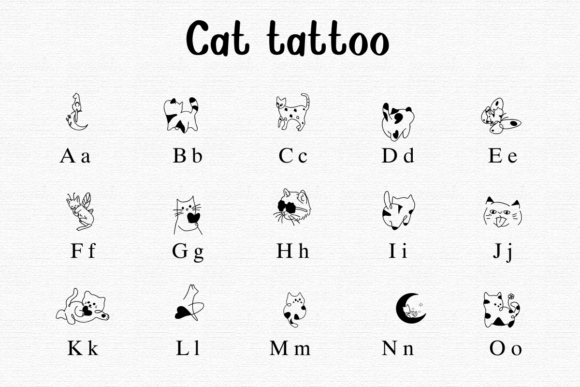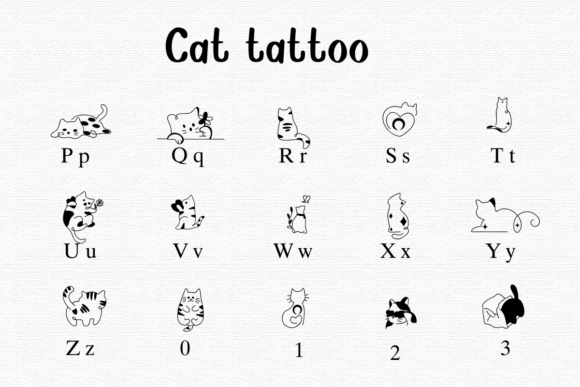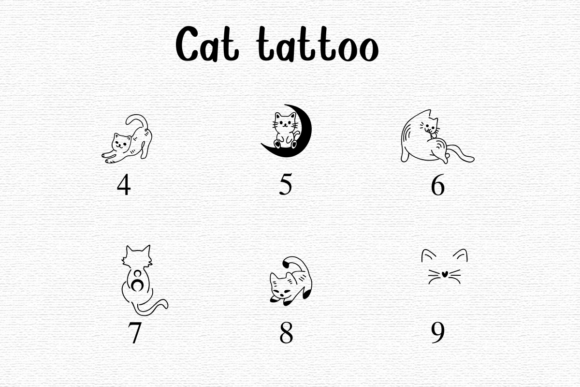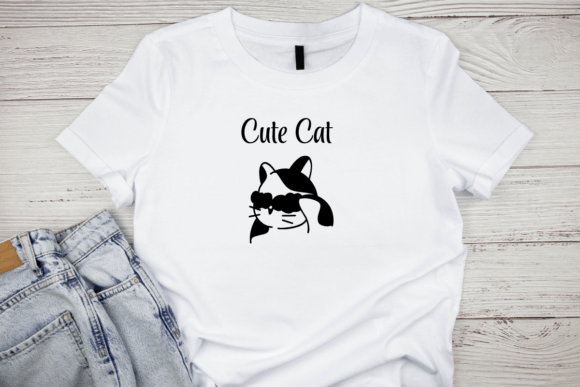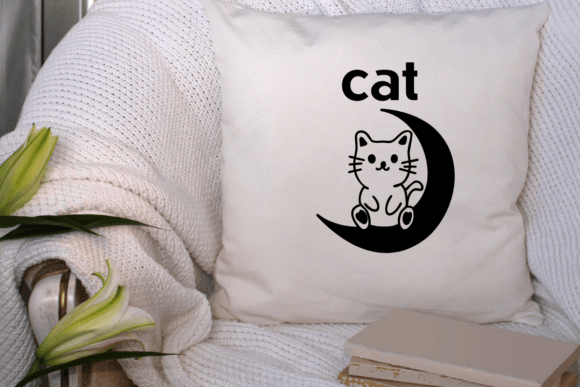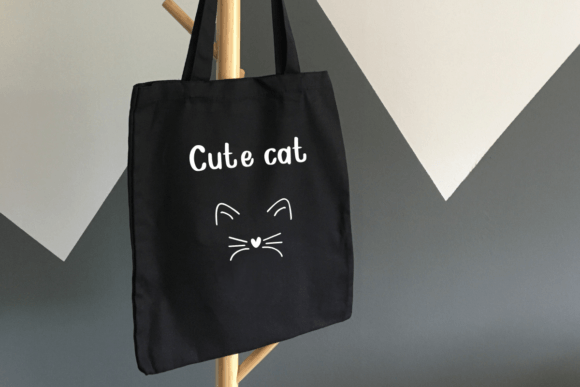
Unleash Your Creativity with Cat Tattoo Font: A Sketched Style Dingbats Font
Are you a designer, crafter, or DIY enthusiast looking for a unique font to add a personal touch to your creative projects? Look no further than the Cat Tattoo Font, a dingbats font with a charming sketched style that’s purr-fect for a variety of applications. In this article, we’ll explore the features and benefits of Cat Tattoo Font, and show you how it can elevate your wedding invitations, DIY projects, crafts, decorations, logos, and more.
What is Cat Tattoo Font?
Cat Tattoo Font is a dingbats font that features a distinctive sketched style, characterized by delicate lines, subtle imperfections, and a whimsical feel. This font is designed to resemble hand-drawn illustrations, giving your projects a personal and artistic touch. With Cat Tattoo Font, you can add a touch of elegance, playfulness, or sophistication to your designs, depending on your creative vision.
Features of Cat Tattoo Font
- Sketched style: Cat Tattoo Font boasts a beautiful, hand-drawn aesthetic that’s perfect for creating unique and eye-catching designs.
- Dingbats font: This font features a wide range of symbols, icons, and illustrations, making it ideal for adding visual interest to your projects.
- Versatile: Cat Tattoo Font can be used for a variety of applications, including wedding invitations, DIY projects, crafts, decorations, logos, and more.
Creative Applications of Cat Tattoo Font
Cat Tattoo Font is an incredibly versatile font that can be used in a wide range of creative projects. Here are some ideas to get you started:
- Wedding Invitations: Add a touch of whimsy and romance to your wedding invitations with Cat Tattoo Font. Use it to create custom illustrations, decorate borders, or add special details to your designs.
- DIY Projects: Cat Tattoo Font is perfect for DIY enthusiasts who love crafting, scrapbooking, or making handmade cards. Use it to add a personal touch to your projects and make them stand out.
- Crafts: From knitting patterns to paper crafts, Cat Tattoo Font can be used to create unique and eye-catching designs for a variety of crafts.
- Decorations: Use Cat Tattoo Font to create custom wall art, decorate parties, or add a personal touch to your home decor.
- Logos: Cat Tattoo Font can be used to create custom logos for businesses, events, or personal projects. Its unique style makes it perfect for brands that want to stand out.
Tips for Using Cat Tattoo Font
To get the most out of Cat Tattoo Font, here are some tips to keep in mind:
- Experiment with different sizes and colors: Cat Tattoo Font looks great in a variety of sizes and colors. Experiment with different combinations to find the perfect look for your project.
- Mix and match with other fonts: Combine Cat Tattoo Font with other fonts to create interesting and dynamic designs.
- Use it sparingly: While Cat Tattoo Font is beautiful, it can be overwhelming if overused. Use it sparingly to add special details or accents to your designs.